Gordon Brown / Prime Minister
Oui, prime minister.
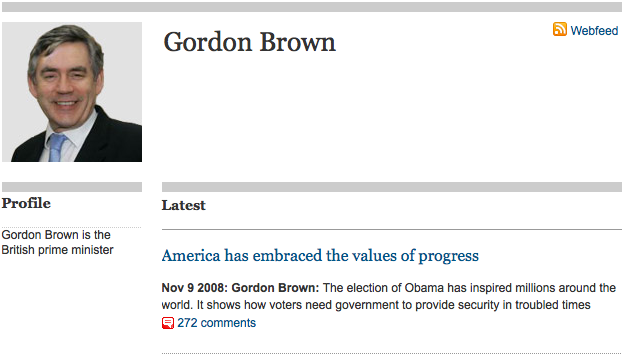
Above: Author profile via The Guardian, for Brown’s recent posting, America has embraced the values of progress. Remarkably, you can respond to this historic post, 272 already have.
Subzero observation: “Gordon Brown is the British prime minister.” How very civilized, they don’t even feel the need to capitalize the official title.